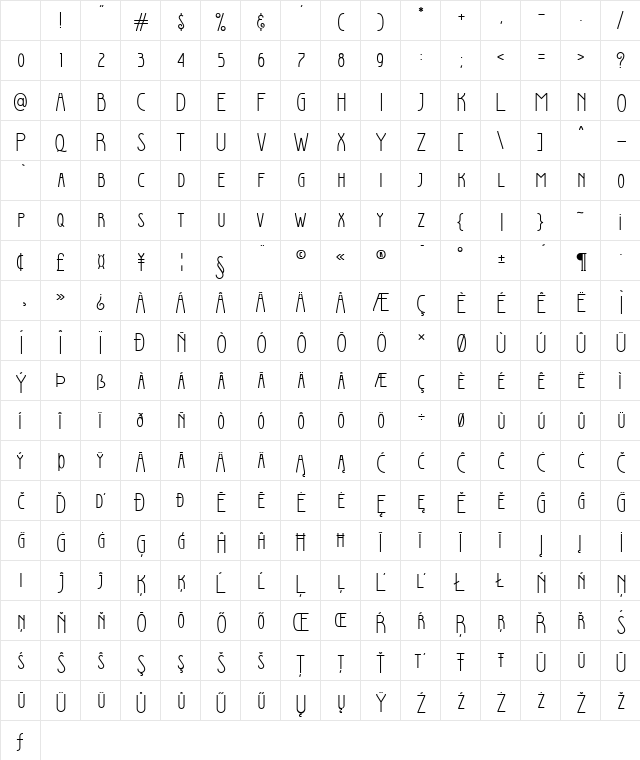
Complete Verola Lux Regular glyph index. Displaying only characters natively supported by Verola Lux Regular font.
Verola Lux is a composed and adaptable typeface that performs quietly and consistently across a wide range of design contexts.